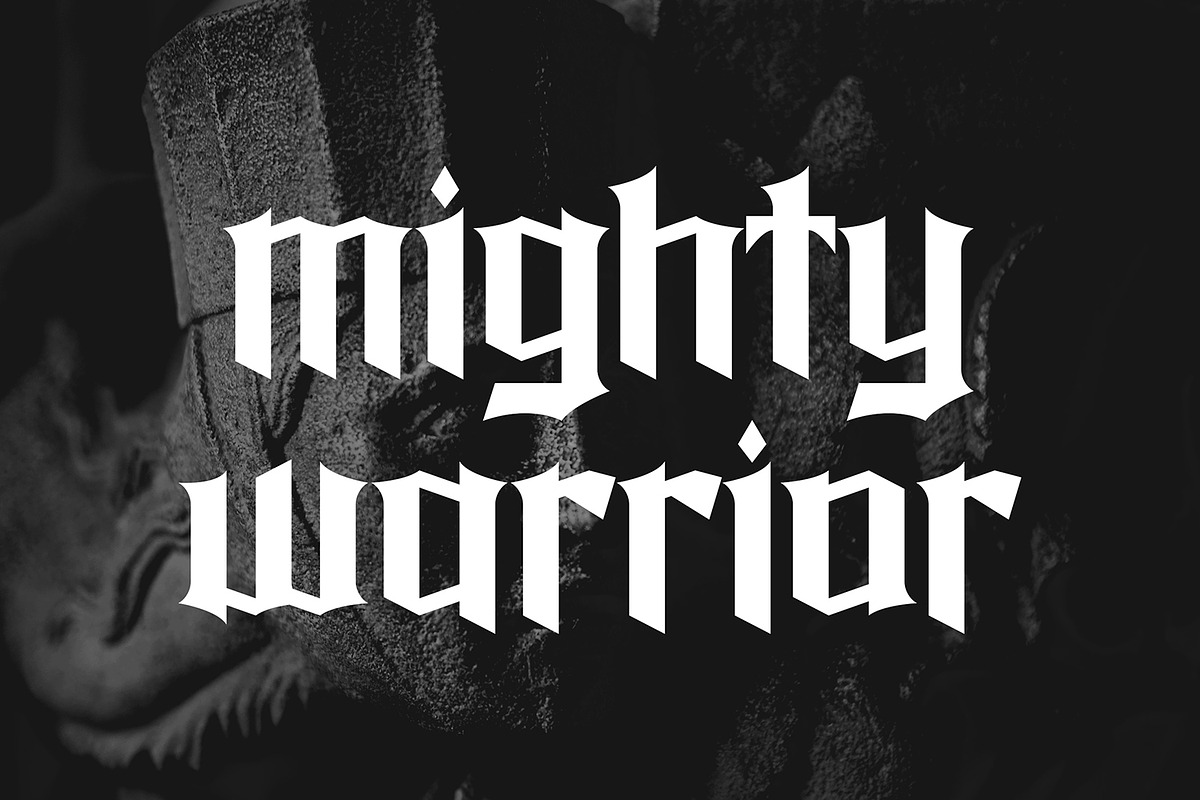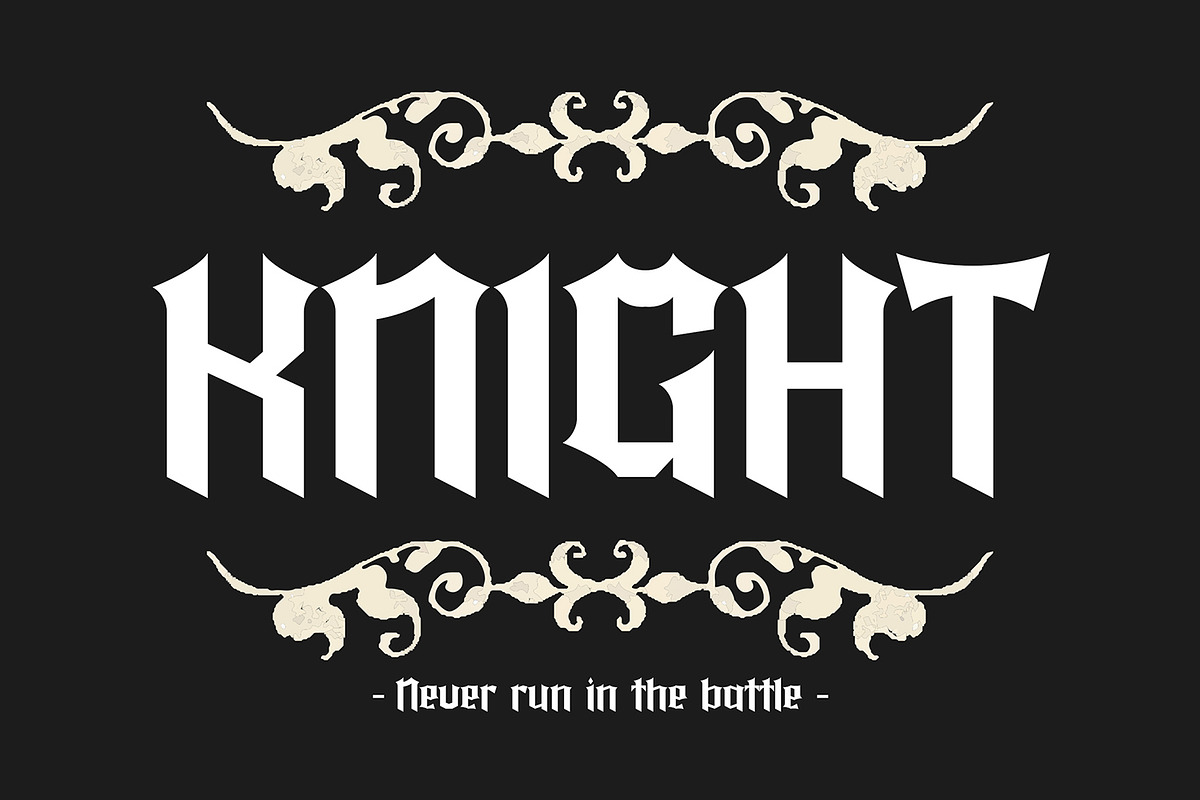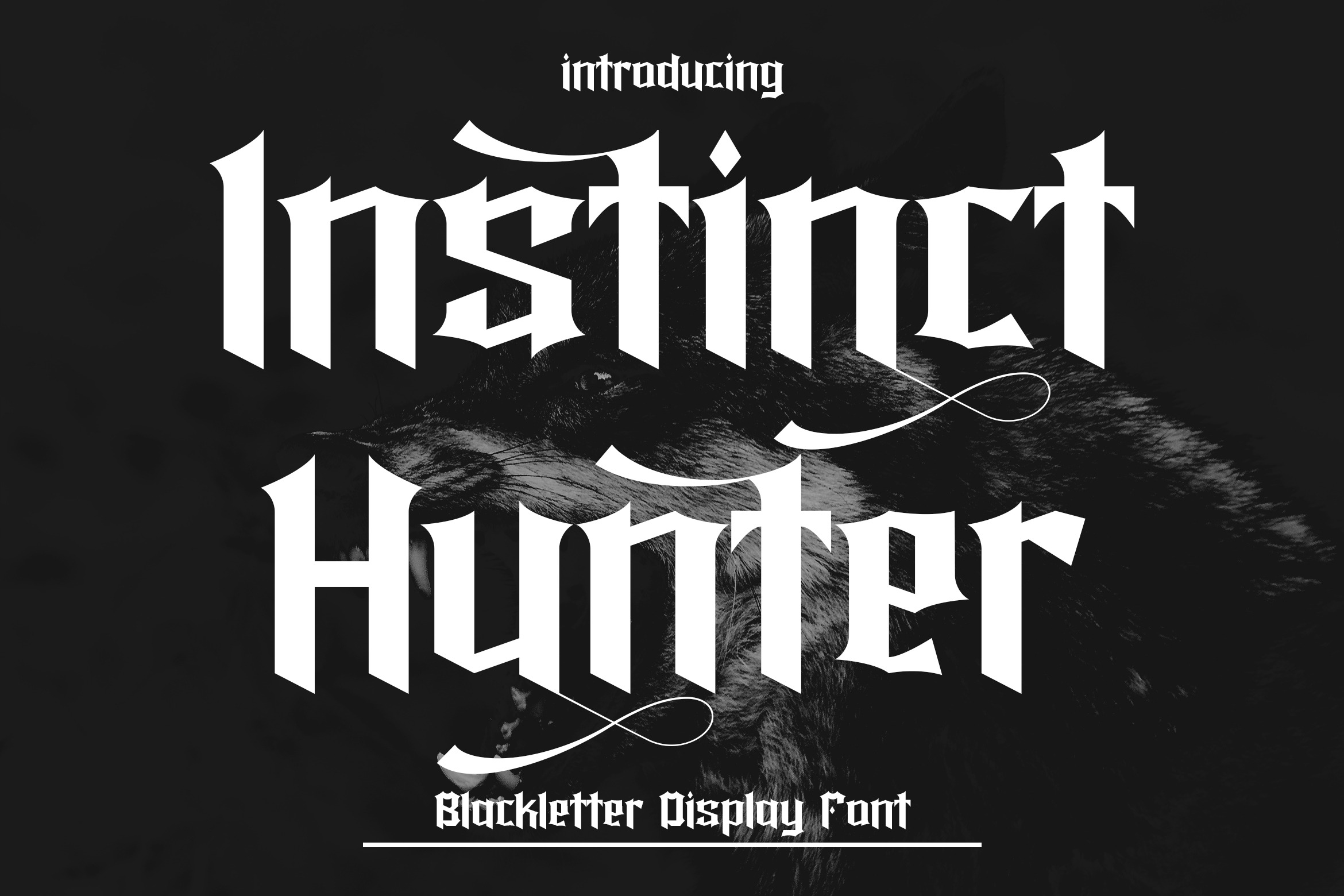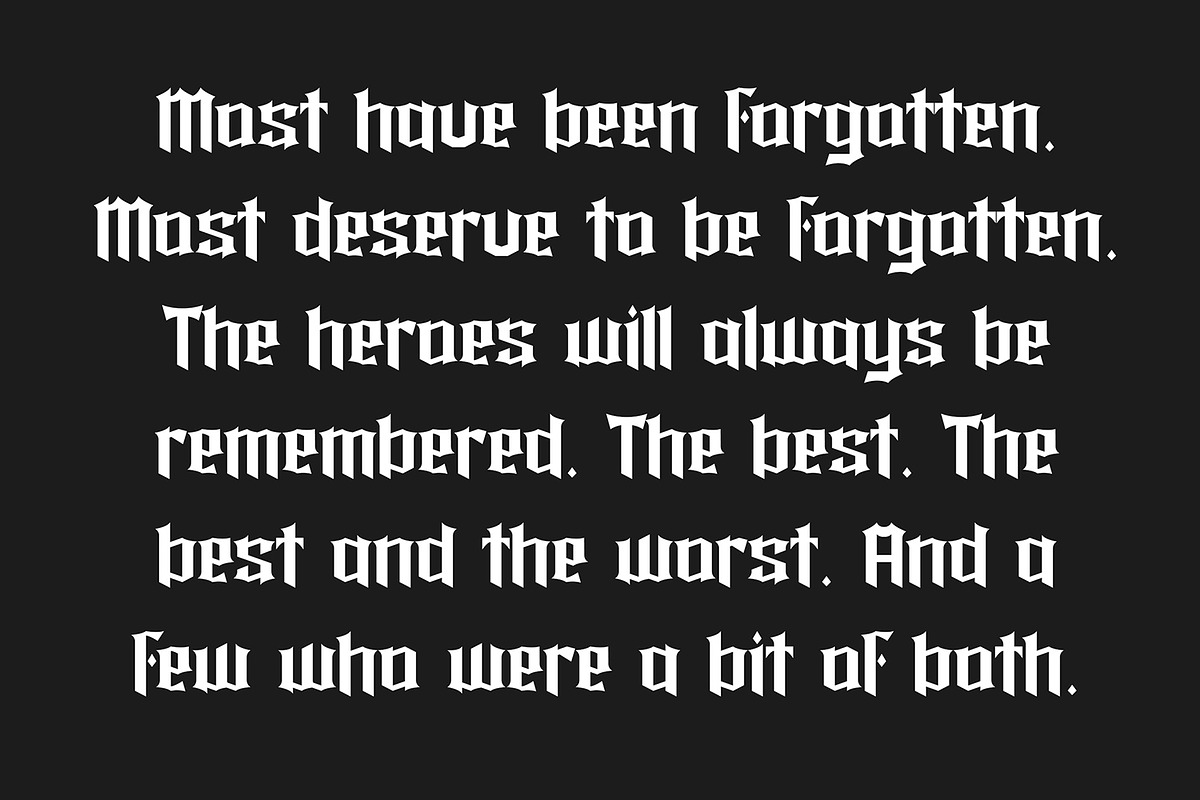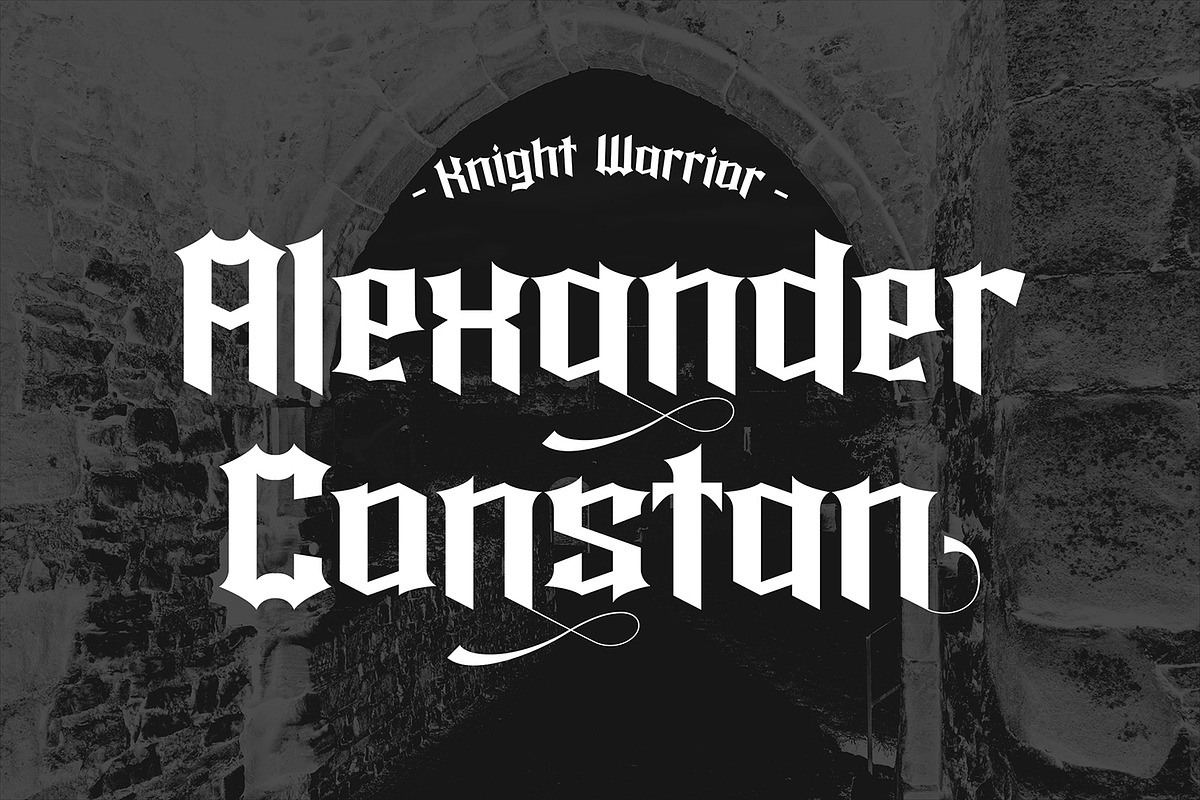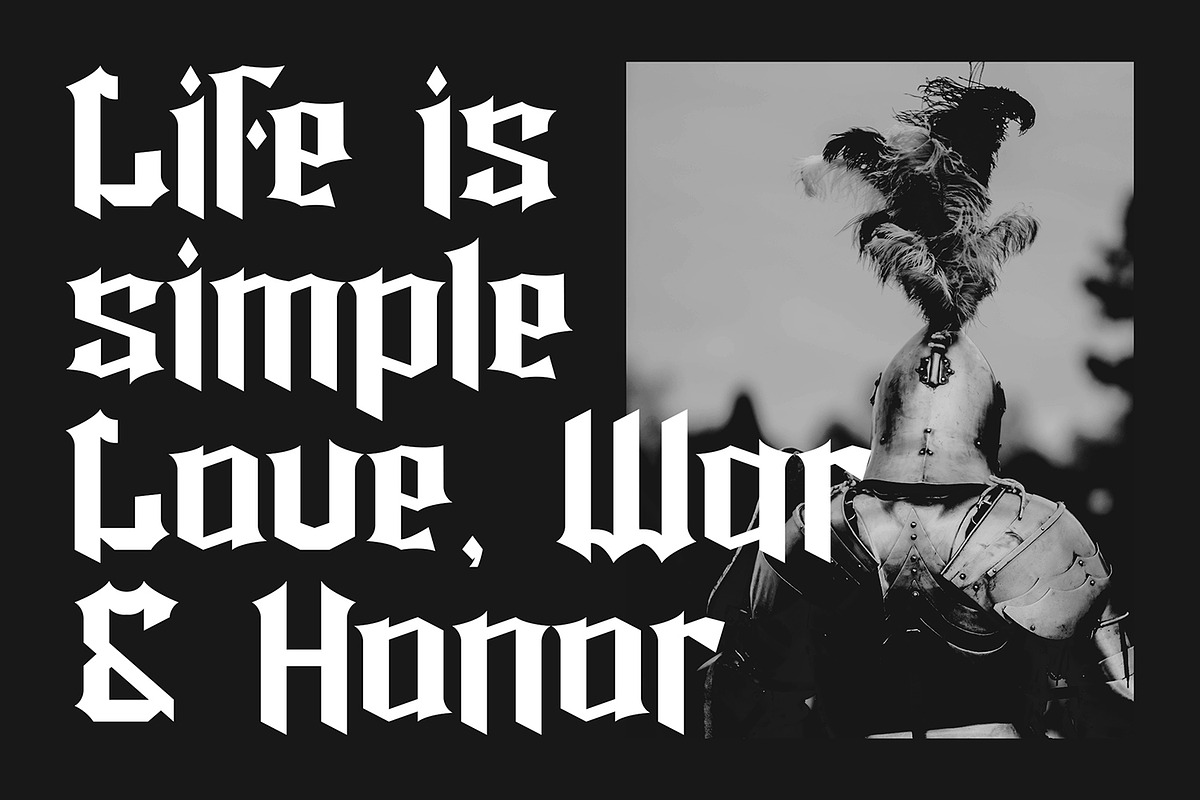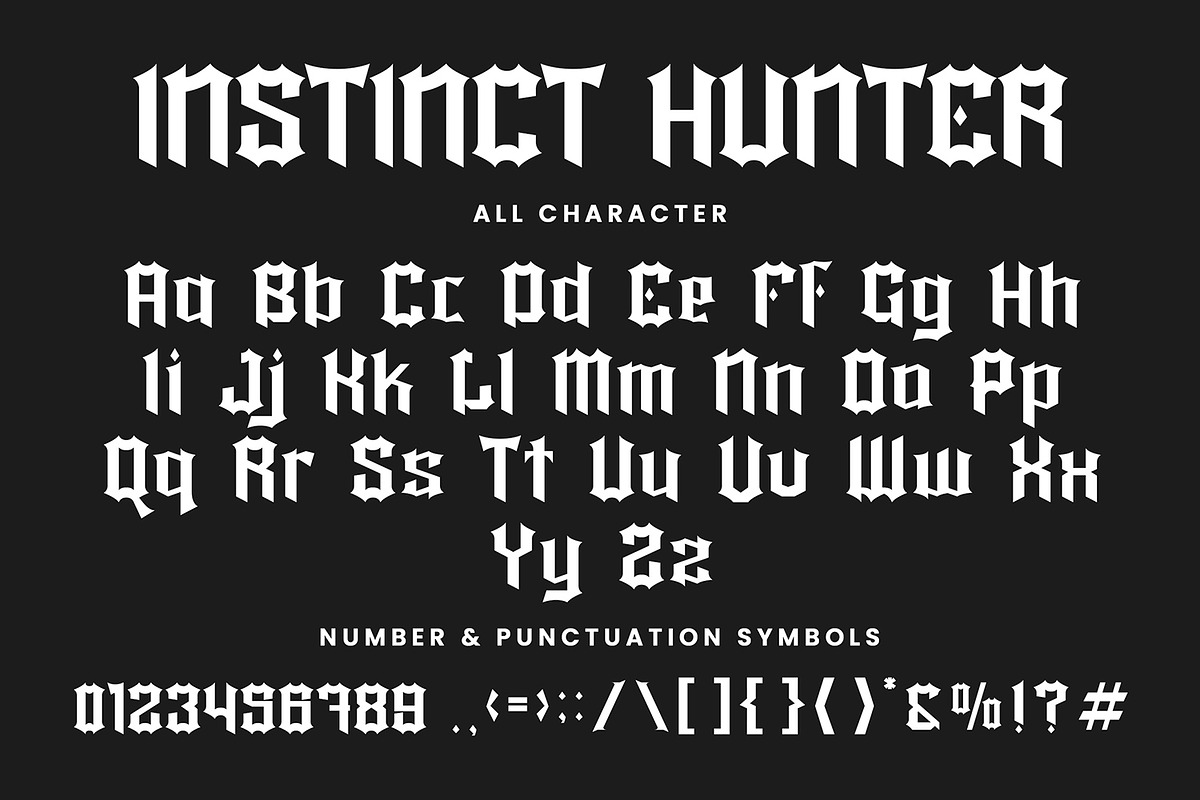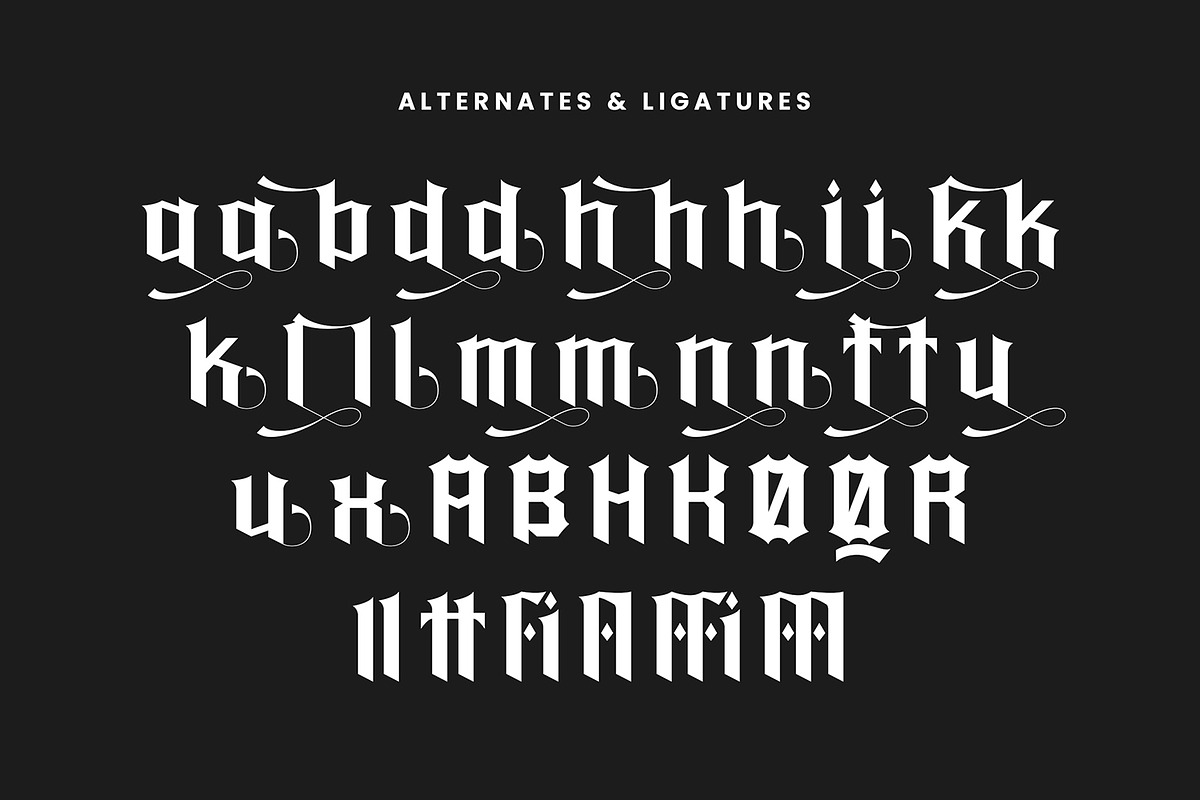
Instinct Hunter - Blackletter Font
Instinct Hunter - Blackletter Font contains a lowercase, uppercase, symbol, and also supports multi-language. There’s a lot of ligature in this font. Instinct Hunter - Blackletter Font also comes with ligatures, stylistic alternates and many more. this font suitable for fashion, branding, catalog and other design that you want.